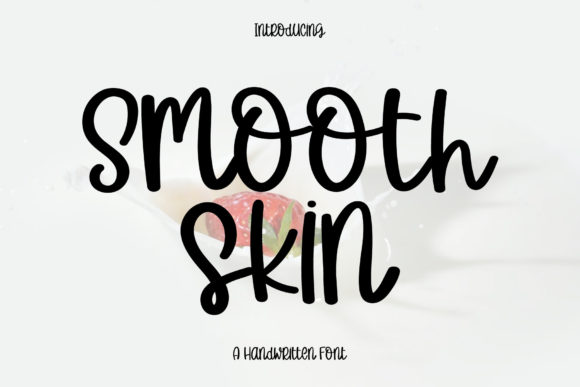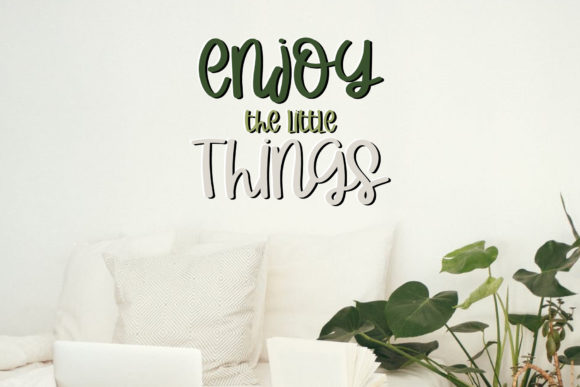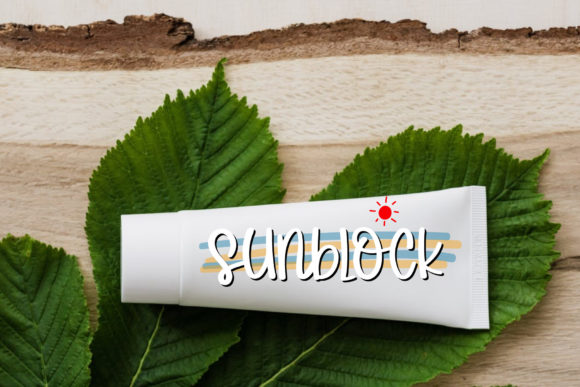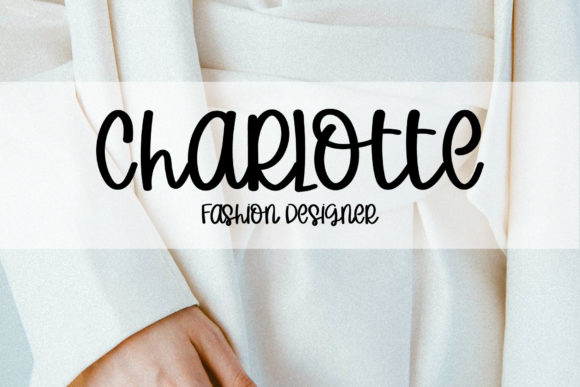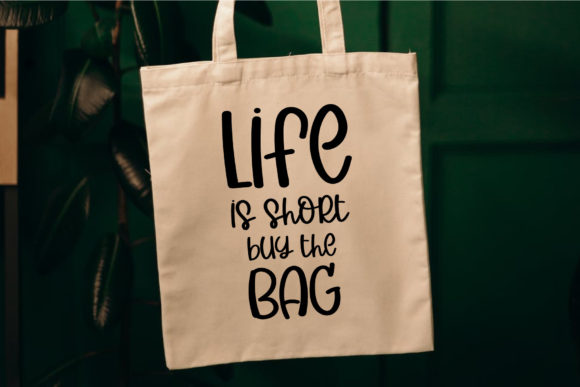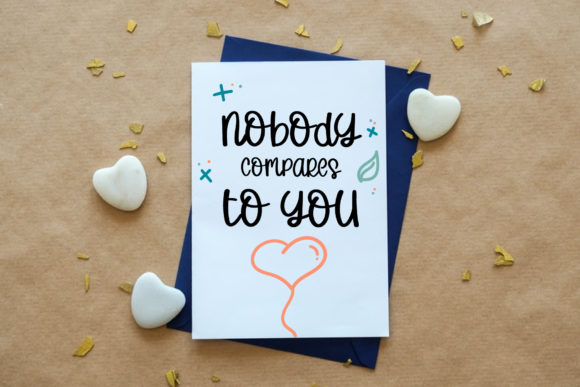
Smooth Skin Font
Smooth Skin is an equally cozy and solemn handwritten font. It will surely elevate the look of your next project, be it apparel designs, exquisite logos, luxury branding, or wedding invitations!